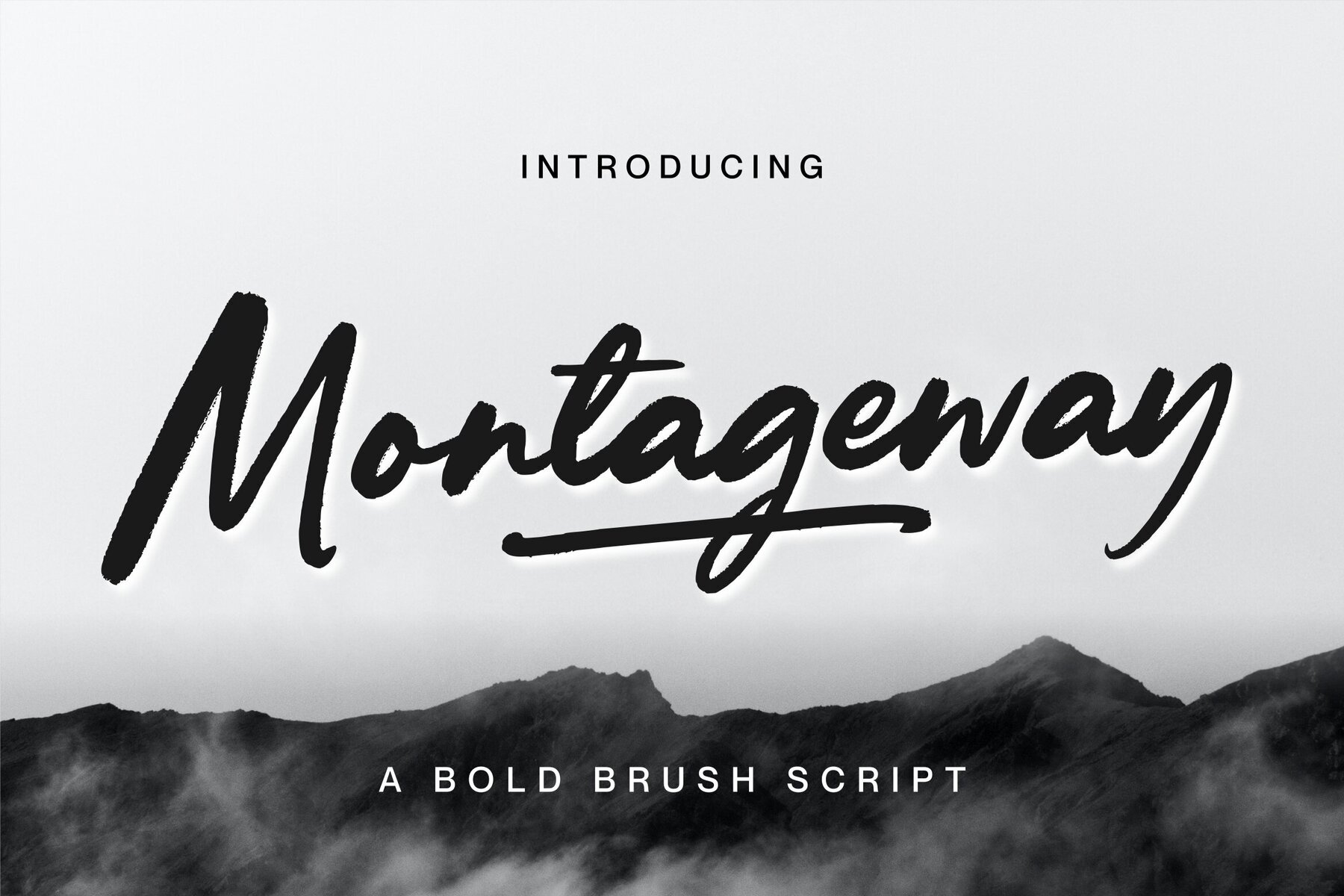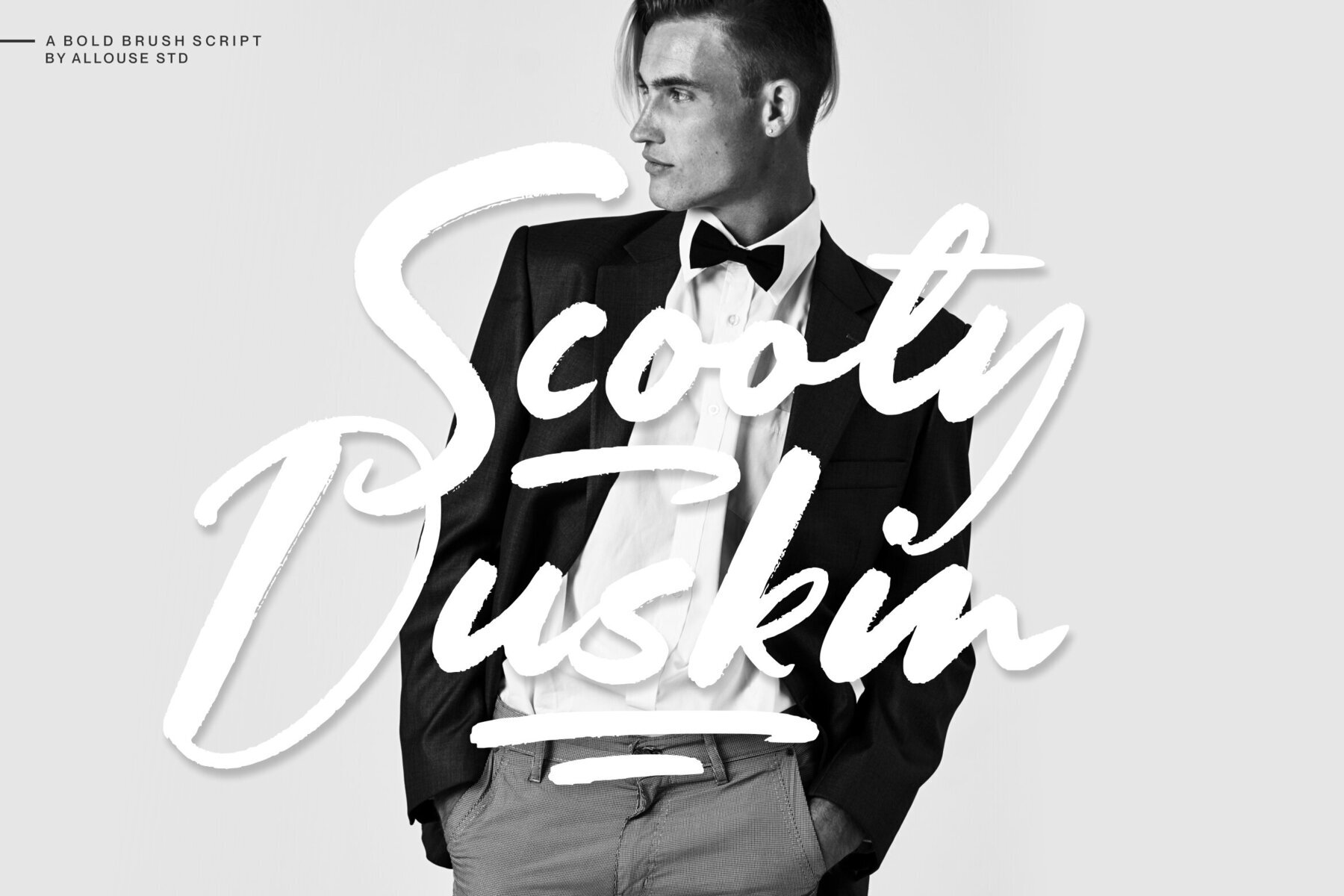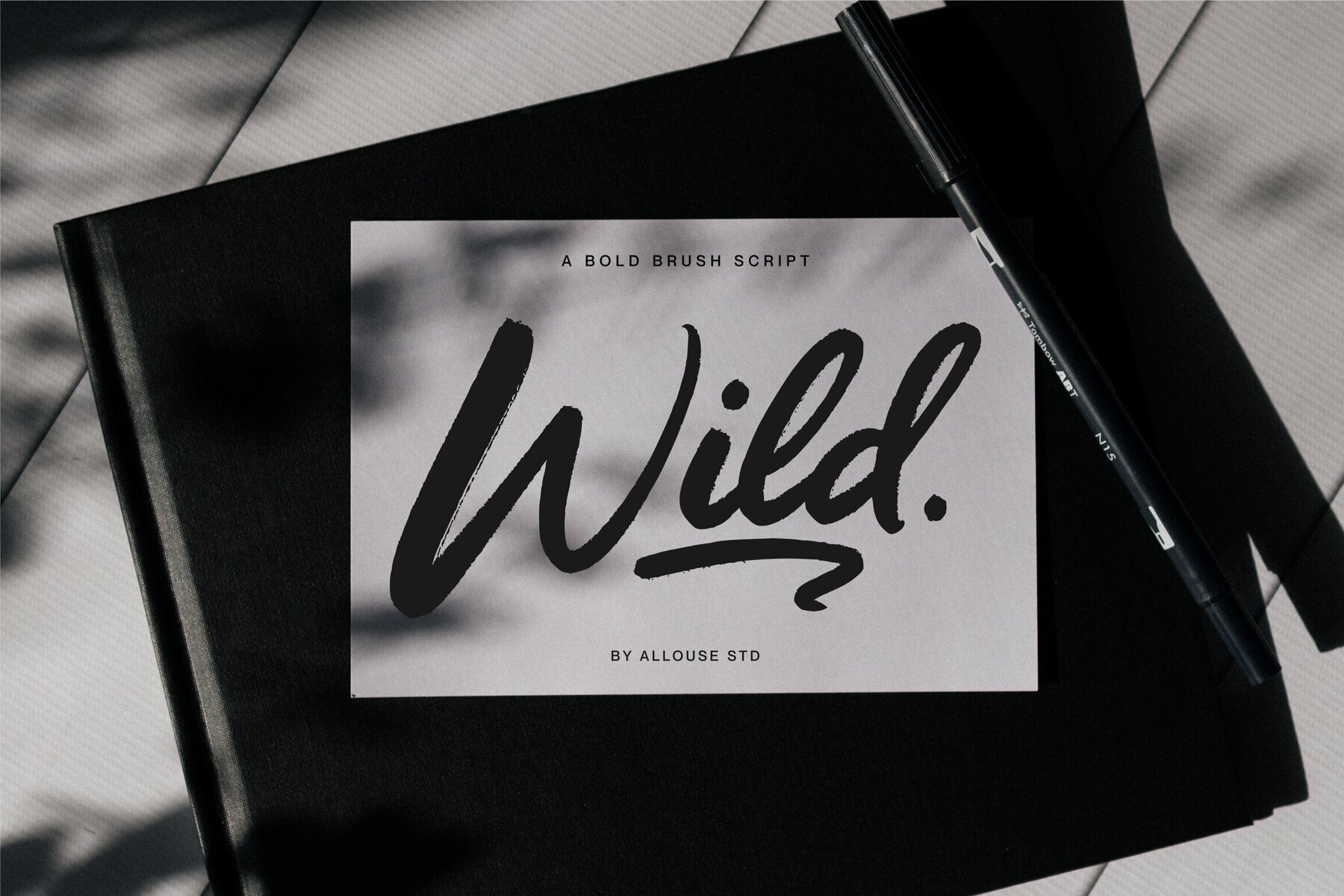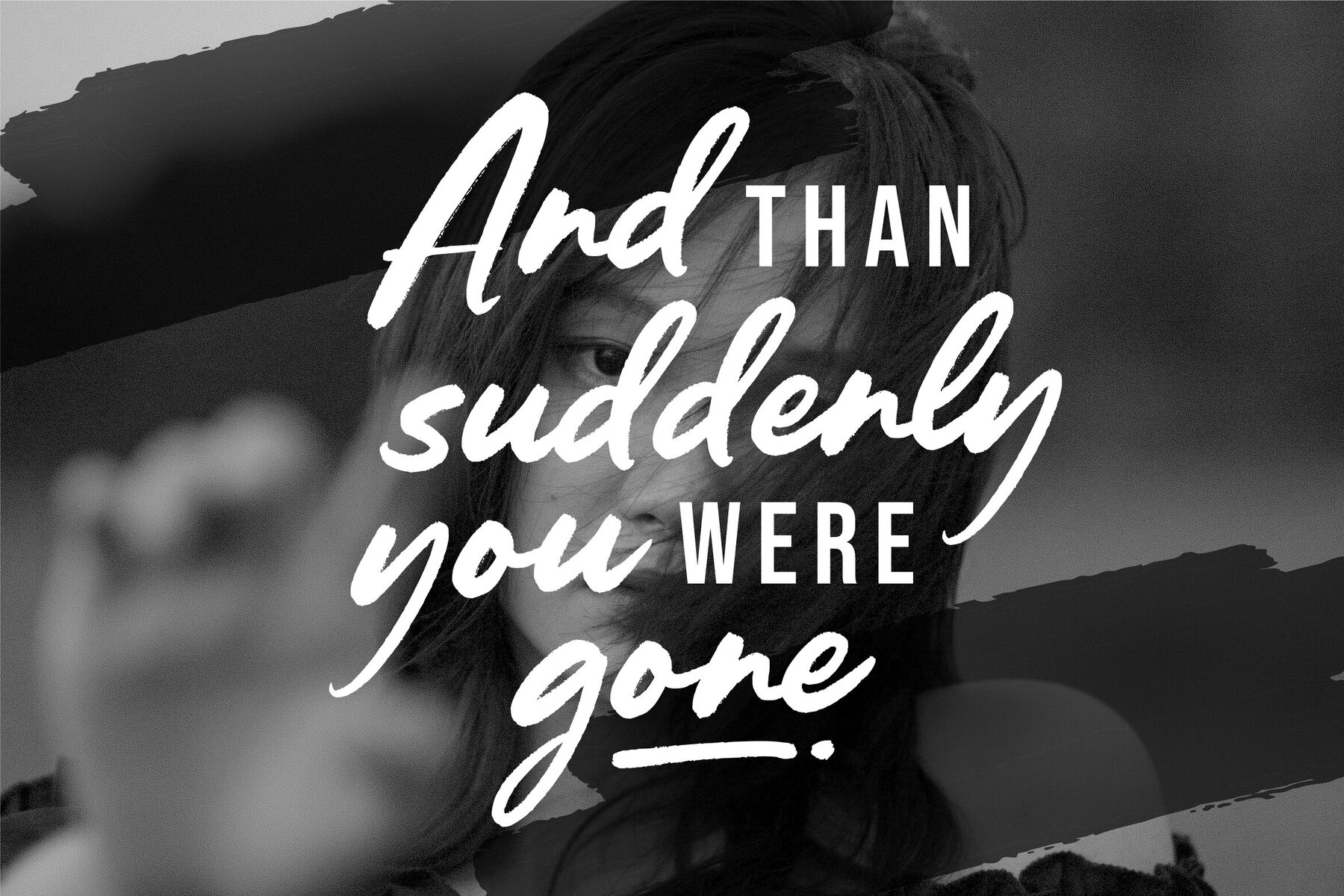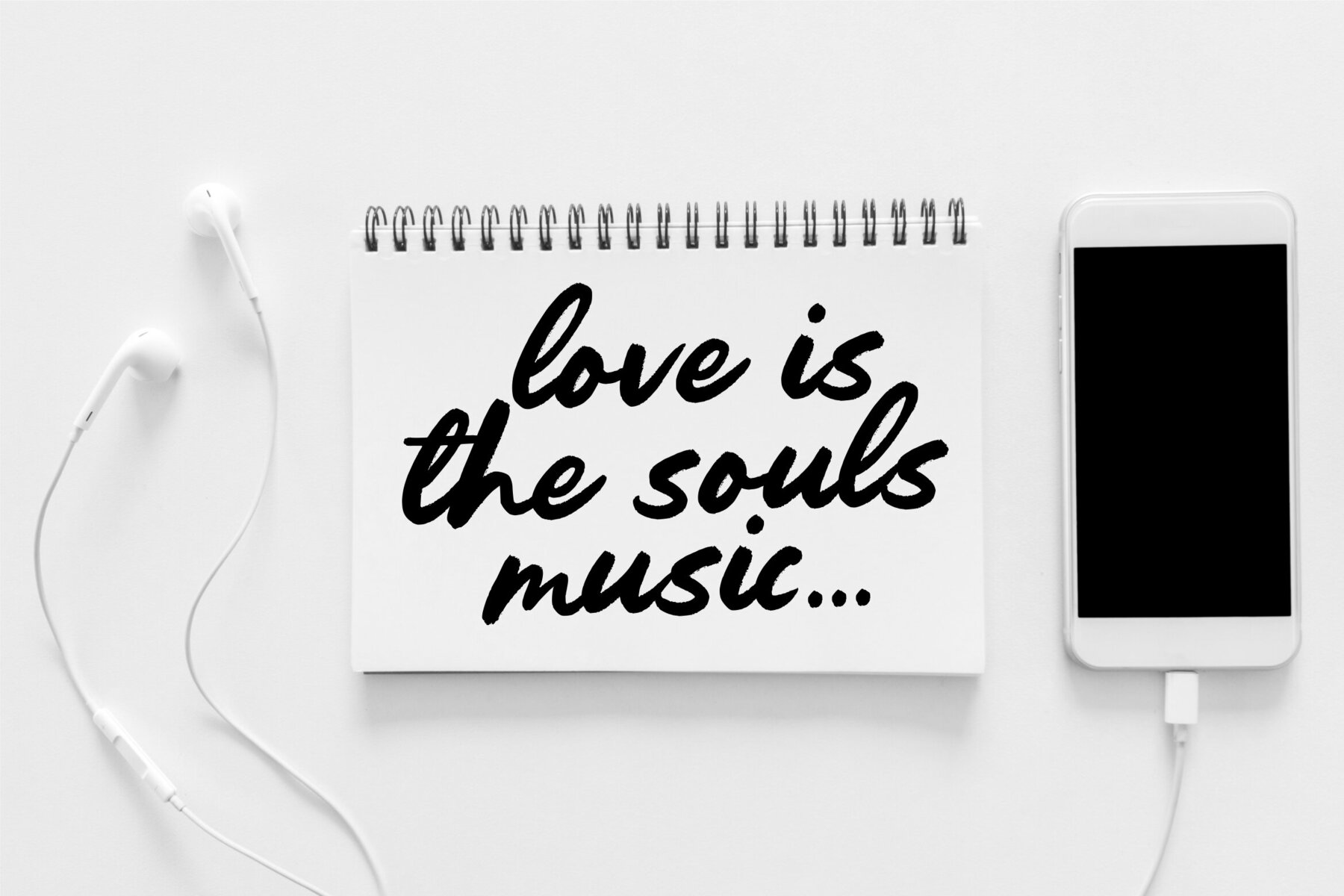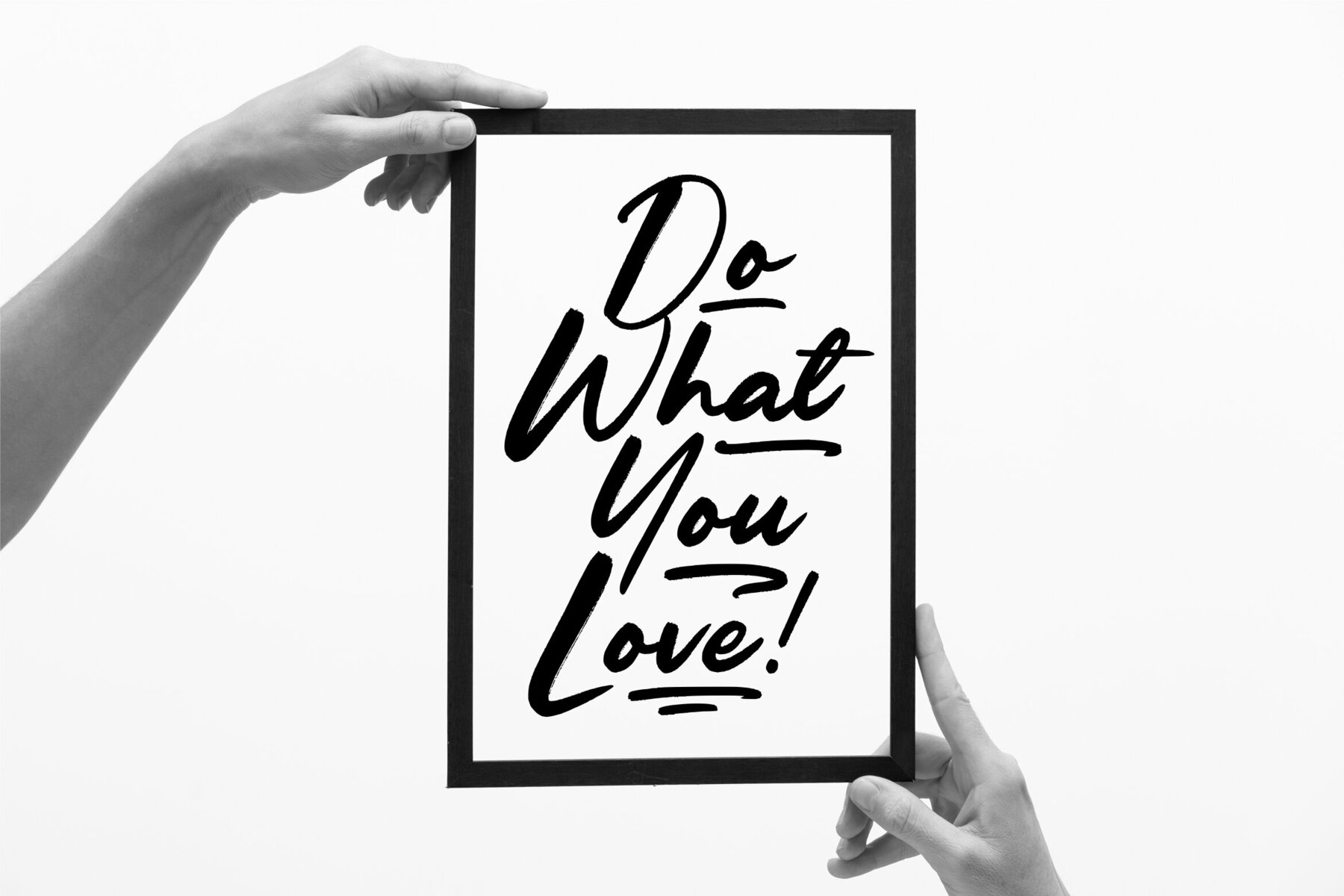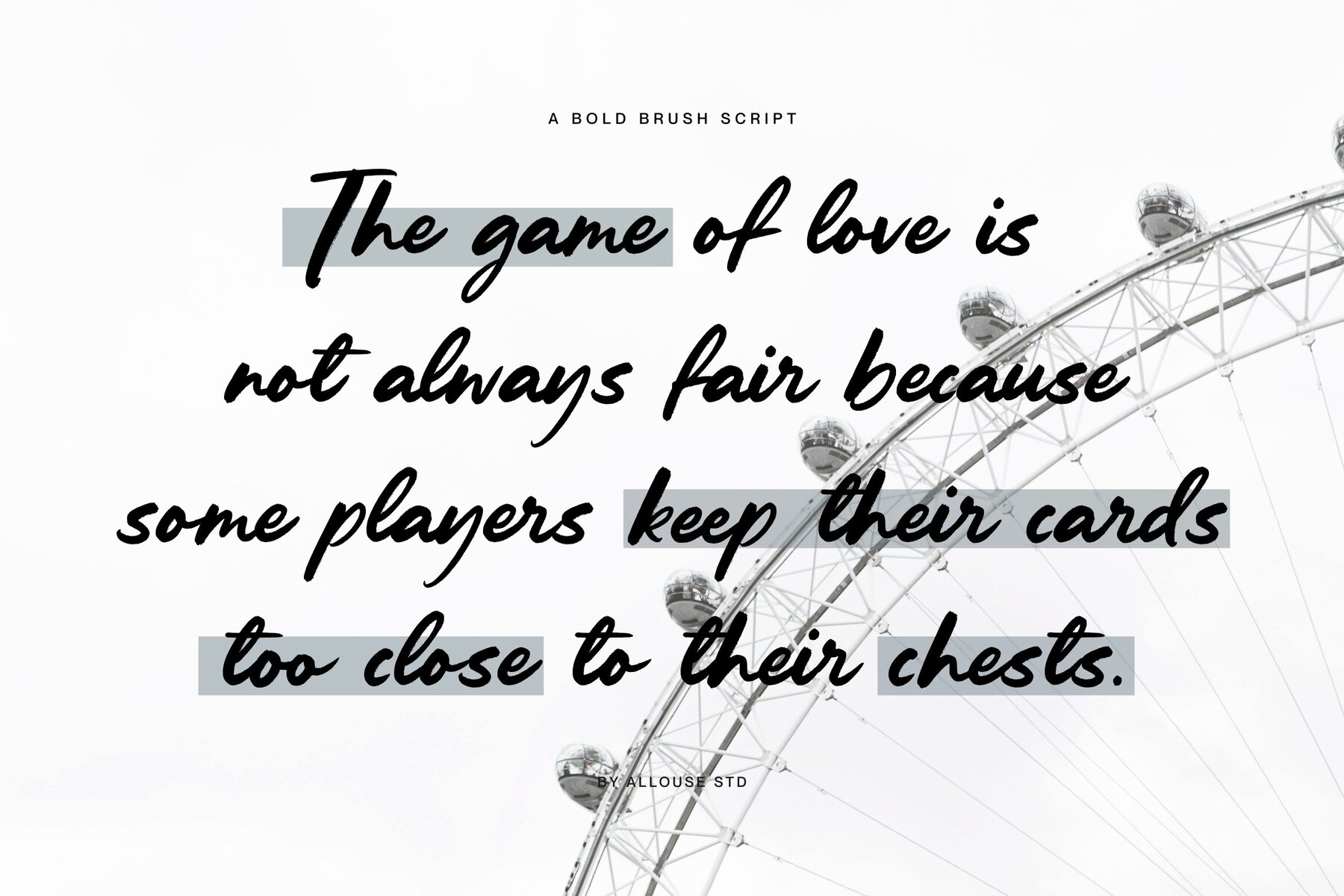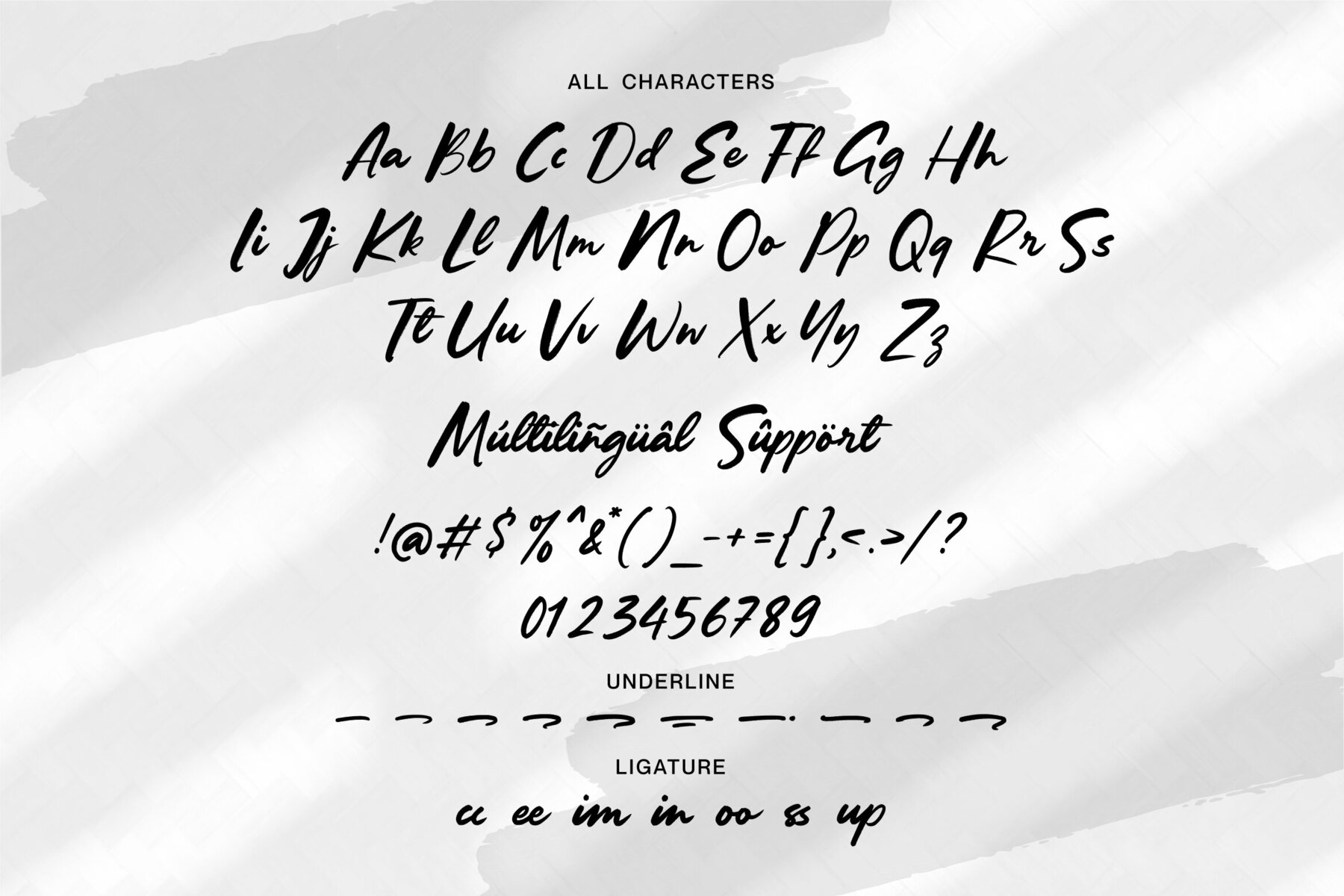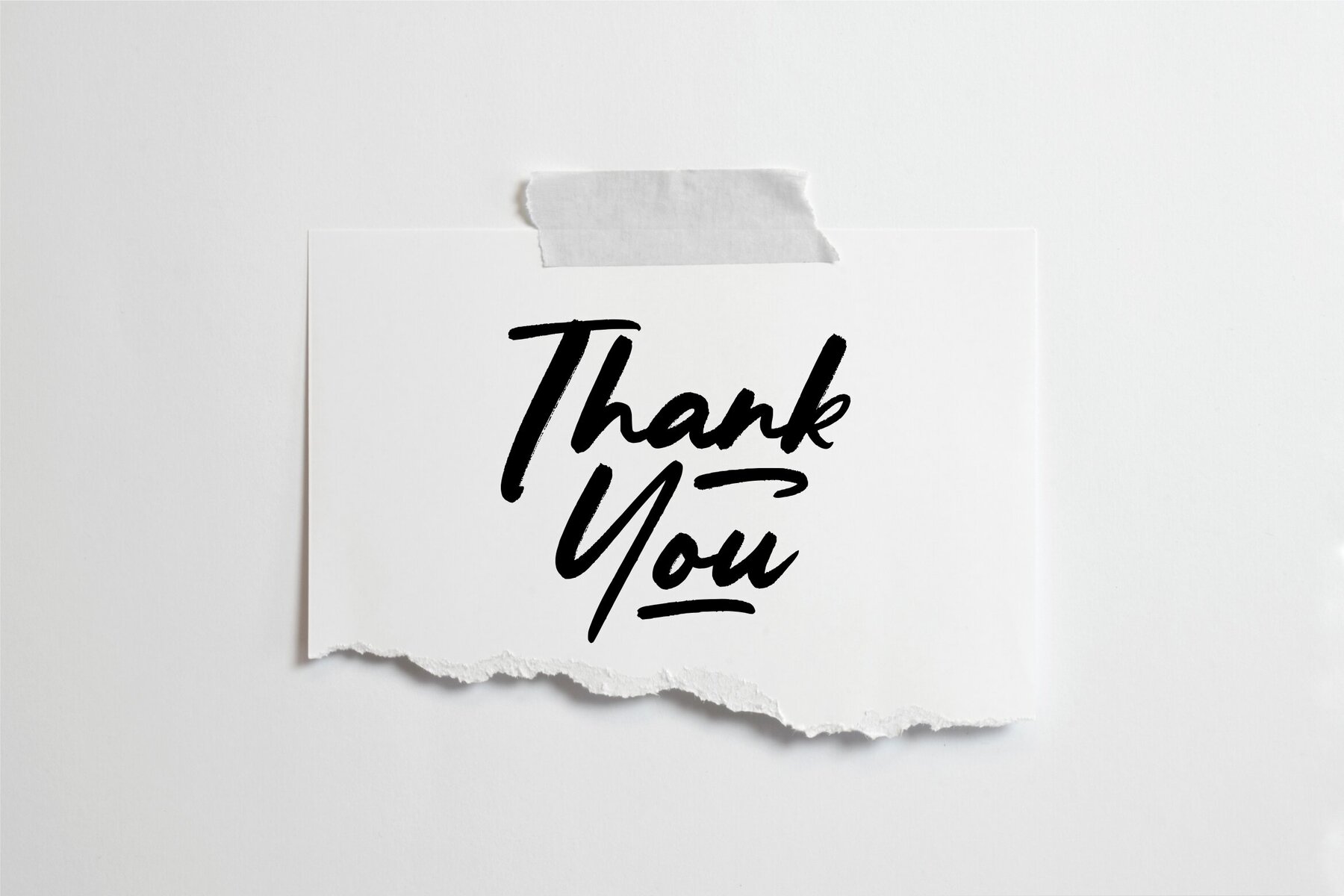
Montageway Font
Montageway Regular
Montageway serves as an ideal choice for diverse graphic design projects. This font seamlessly adapts to multiple uses such as product packaging, branding, and editorial layouts. With its distinct character, Montageway enhances any visual communication, ensuring clarity and elegance.Montageway: A Versatile Typeface for Various Applications